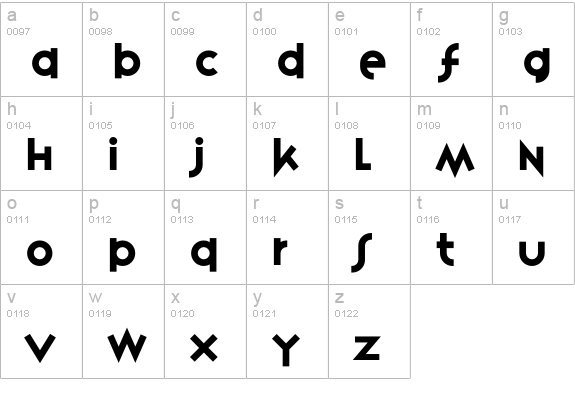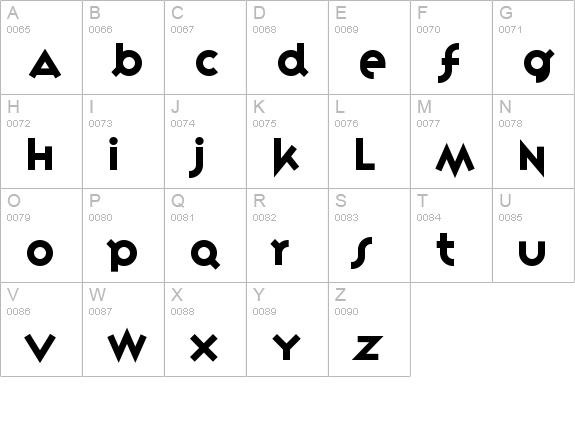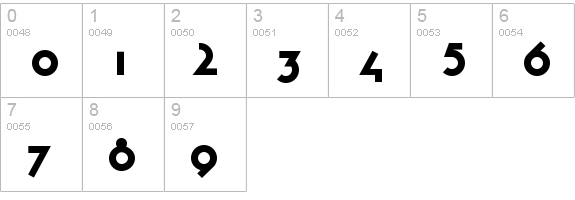
VariexRegularA is a versatile and modern font that exudes elegance and sophistication. With its clean lines and balanced proportions, this font is perfect for any design project that requires a touch of style and professionalism. Whether you're creating a logo, designing a website, or crafting invitations, VariexRegularA will elevate your work to new heights. This font offers a wide range of characters, including uppercase letters, lowercase letters, numbers, and punctuation marks, ensuring that you have all the tools you need to bring your creative vision to life. The letters are meticulously crafted, with attention to detail that is evident in every curve and stroke. One of the best things about VariexRegularA is that it is free. That's right, you can download this amazing font without spending a single penny. It is available for free download exclusively at FontsMarket.com. This means that you can enjoy the benefits of this stunning font without breaking the bank. Not only is VariexRegularA free, but it is also incredibly easy to use. Whether you're a professional designer or a beginner, you'll find that this font is user-friendly and intuitive. It is compatible with a variety of design software, making it versatile and accessible to a wide range of users. The beauty of VariexRegularA lies in its simplicity. It has a timeless quality that ensures it will never go out of style. It can be used in a variety of design projects, from corporate branding to wedding invitations, and will always make a bold and unforgettable impression. So why wait? Download VariexRegularA for free today and take your designs to the next level. With its stunning aesthetics and user-friendly nature, this font is sure to become a favorite in your creative toolbox. Don't miss out on the opportunity to enhance your designs with this incredible font, available exclusively at FontsMarket.com.